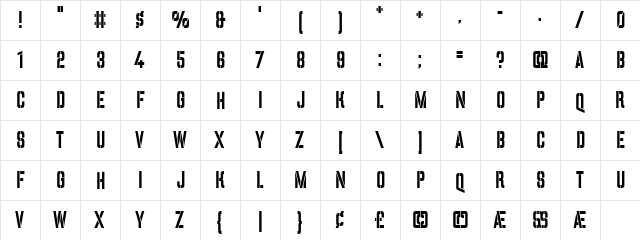
AlexeyOne Medium
Design Context for AlexeyOne Typeface
AlexeyOne is a composed and adaptable typeface that performs quietly and consistently across a wide range of design contexts.
Pro Tip: Use AlexeyOne in both headline and body roles to test its range before committing to a single application.